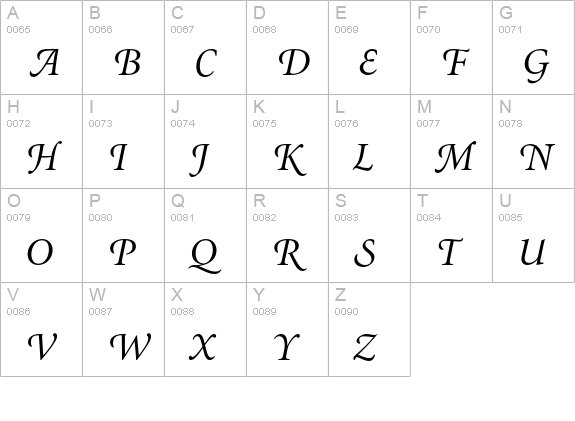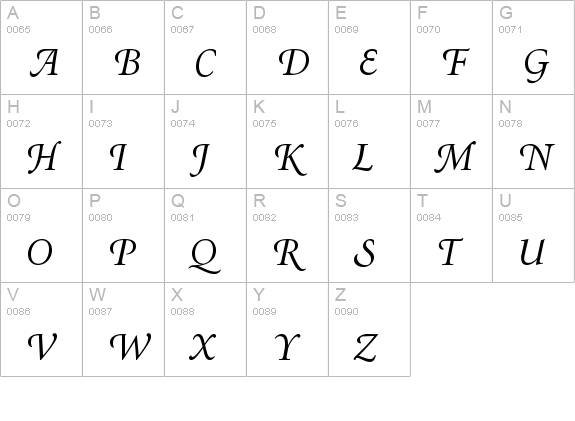
Minion Italic Swash is a distinctive, italic variant in the Minion typeface family \xE2\x80\x94 well suited to design and typography projects.
Sure! Here is a long description for the Minion Italic Swash font: "Introducing the elegant and sophisticated Minion Italic Swash font, a delightful addition to any designer's toolkit. This unique typeface combines traditional Minion characteristics with graceful swashes to create a truly stunning aesthetic. The flowing italic style exudes a sense of refinement and charm, making it perfect for adding a touch of elegance to your projects. What's even better is that the Minion Italic Swash font is available for free download at FontsMarket.com! This means you can easily enhance your designs with this beautiful typeface without any cost. Whether you're working on invitations, branding, or editorial layouts, this font will bring a touch of class and style to your work. Don't miss out on the opportunity to elevate your designs with the Minion Italic Swash font. Download it for free today and start creating stunning visuals that are sure to impress!"